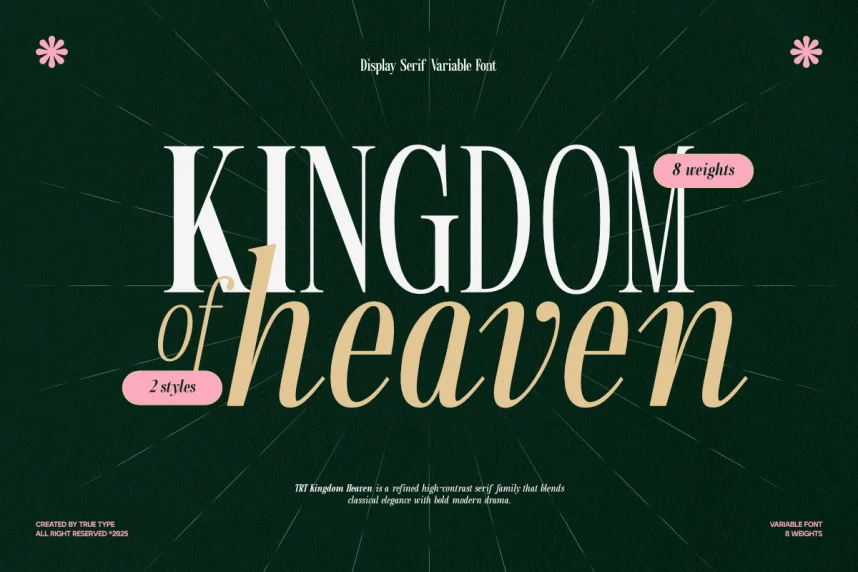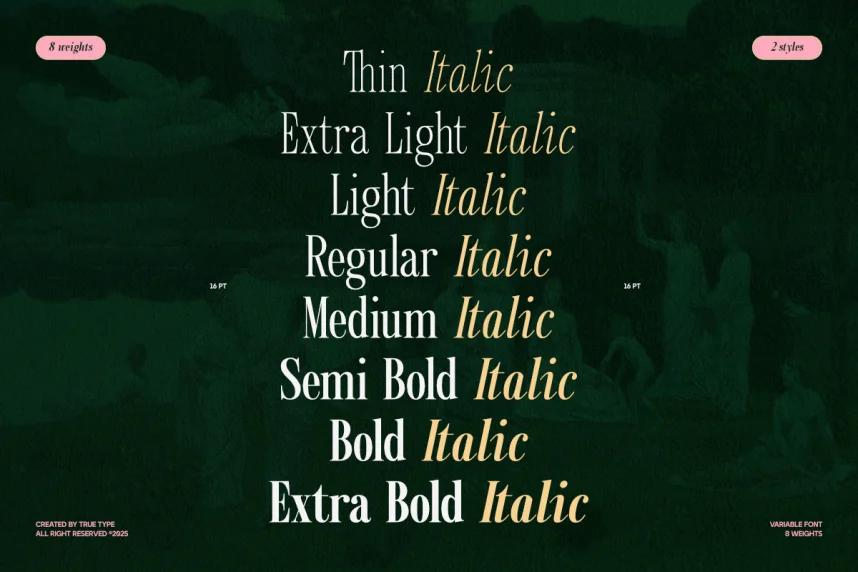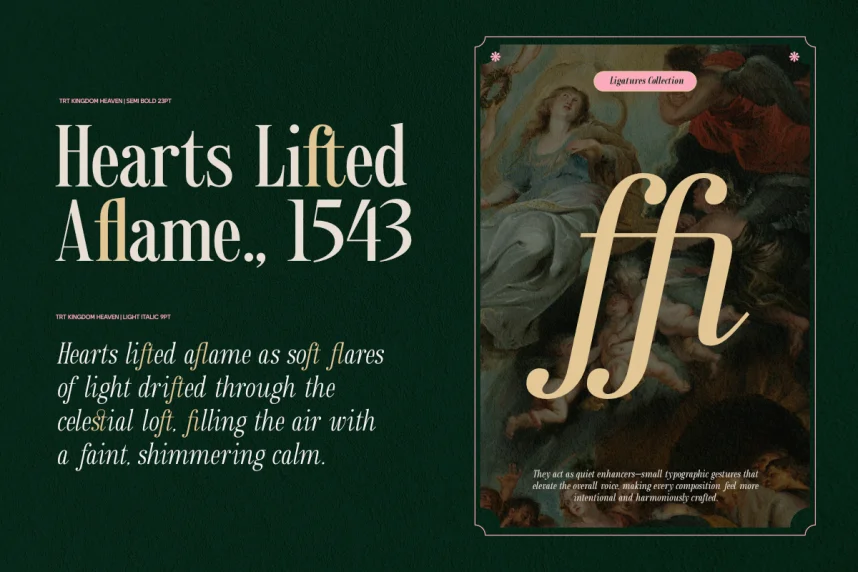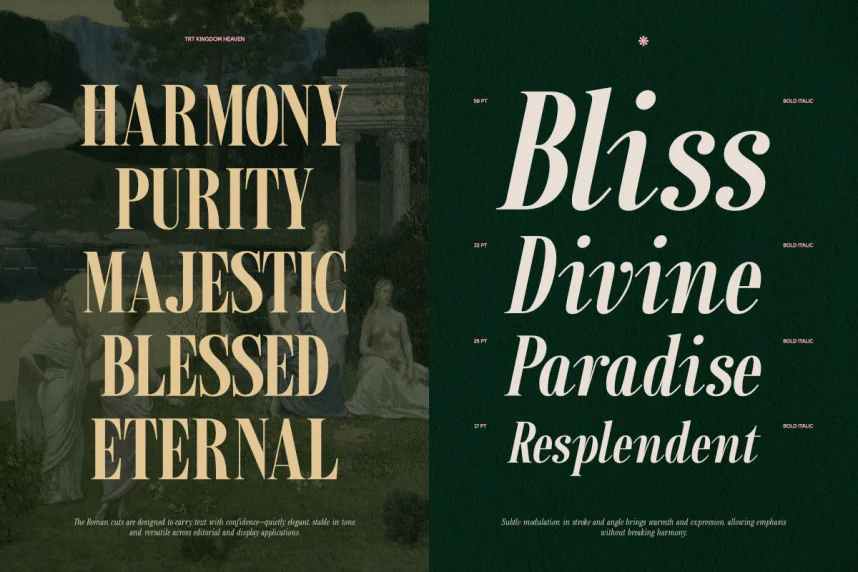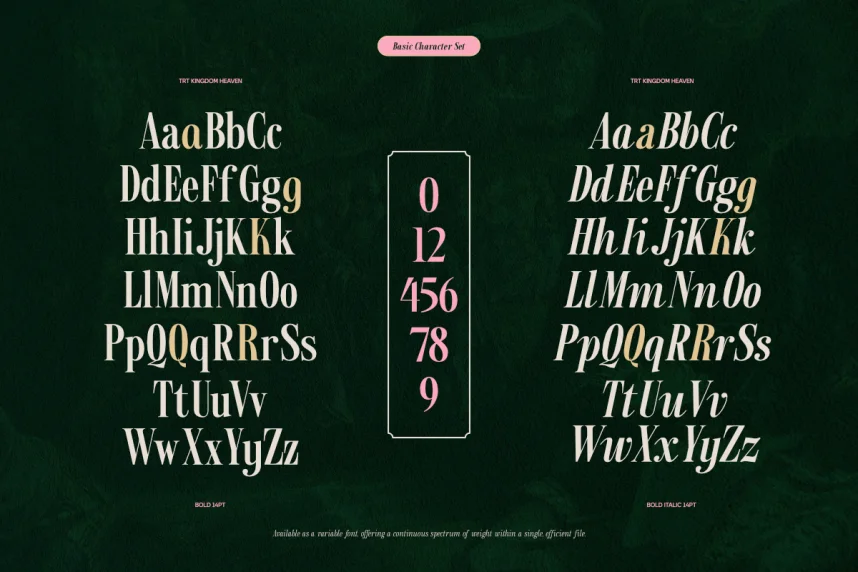
TRT Kingdom Heaven Font is a decorative display typeface with a royal, elegant feel. The font’s bold, intricate strokes and sharp edges make it perfect for high-end branding, luxury logos, and creative designs that require a touch of grandeur.
This font is ideal for use in logos, product packaging, and invitations, offering a sophisticated and regal look. It pairs well with clean sans-serif fonts for added contrast. TRT Kingdom Heaven Font is available in TTF and OTF formats and comes with a commercial-use license. Be sure to check the license before using it commercially.